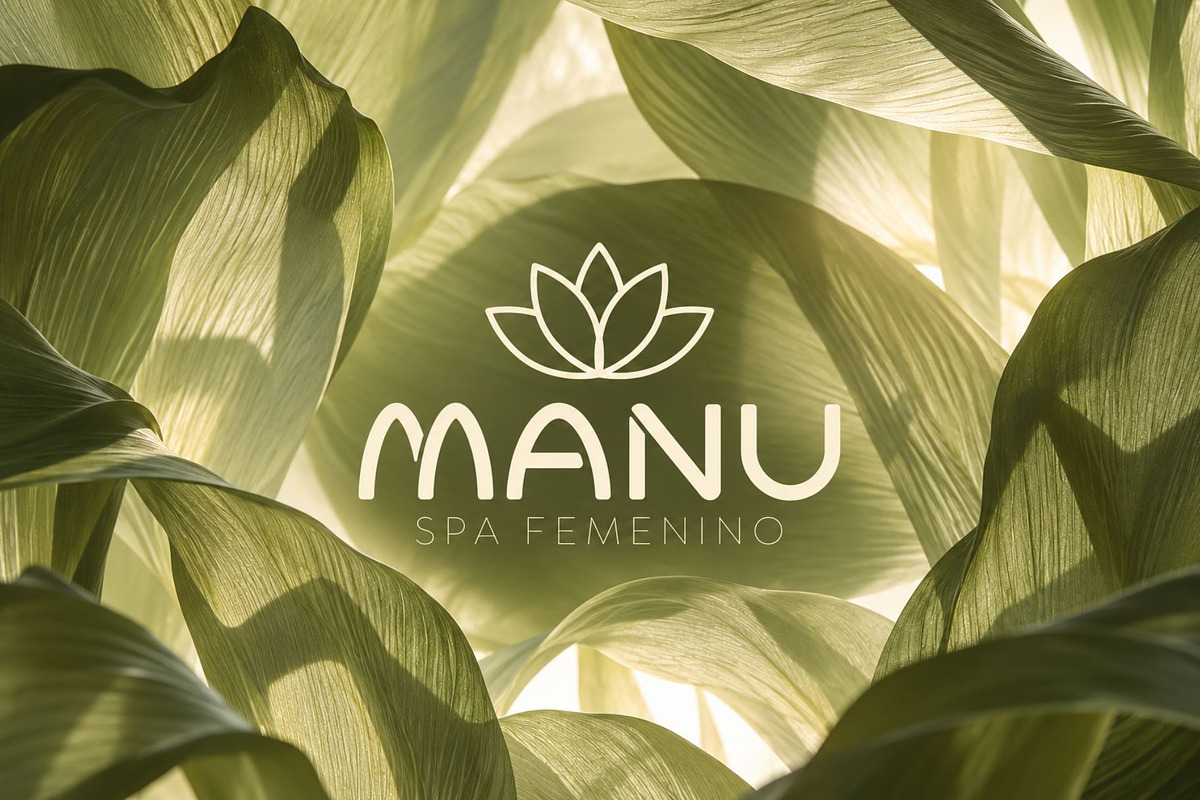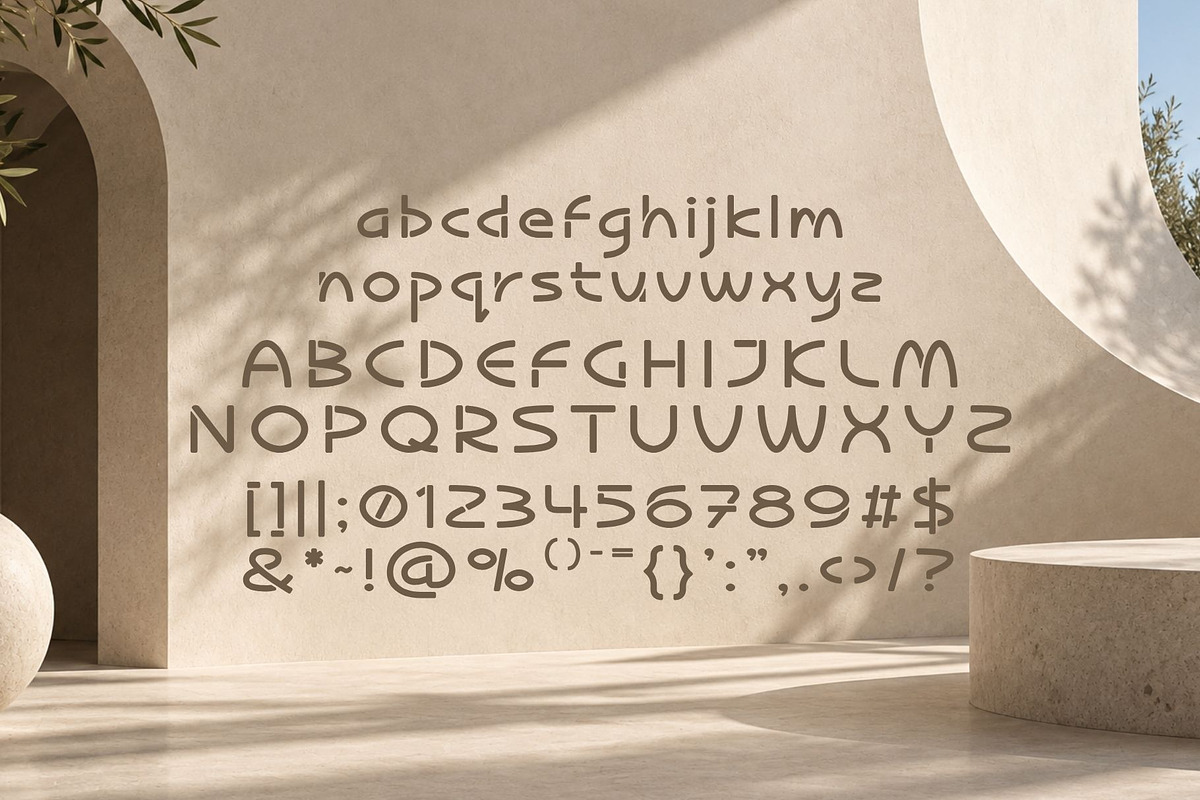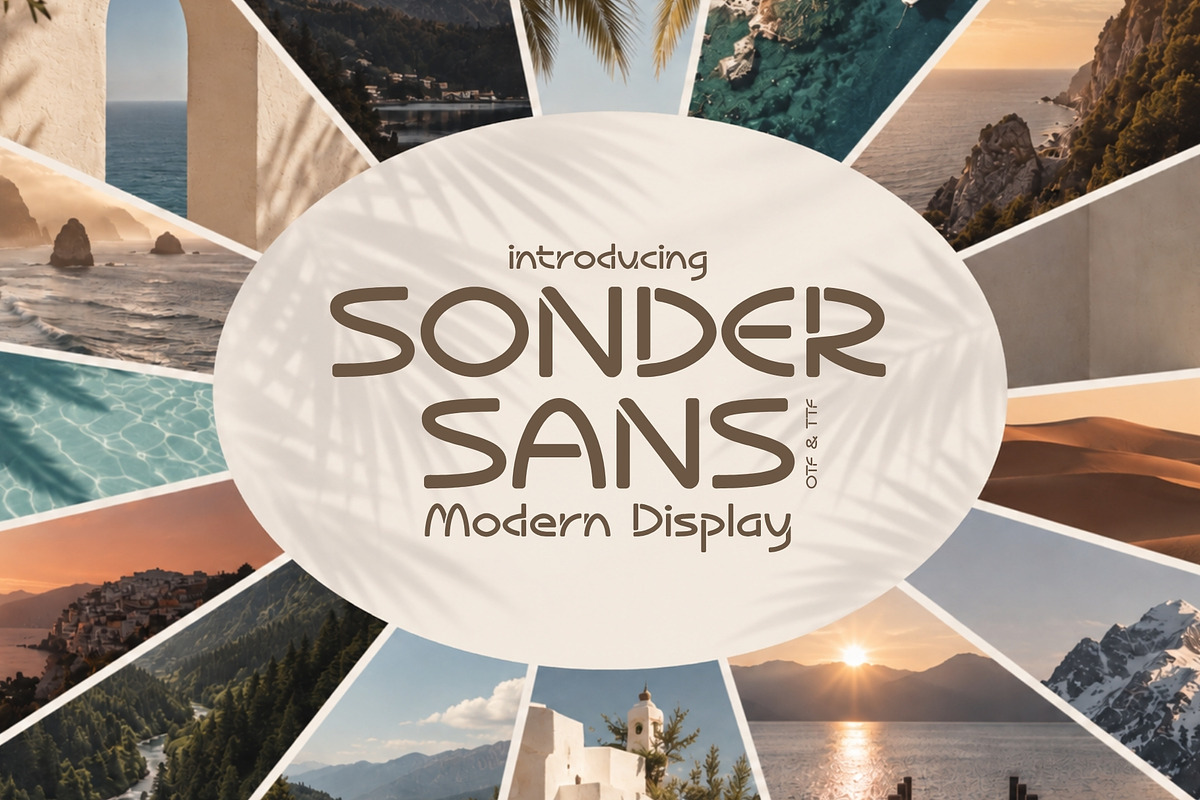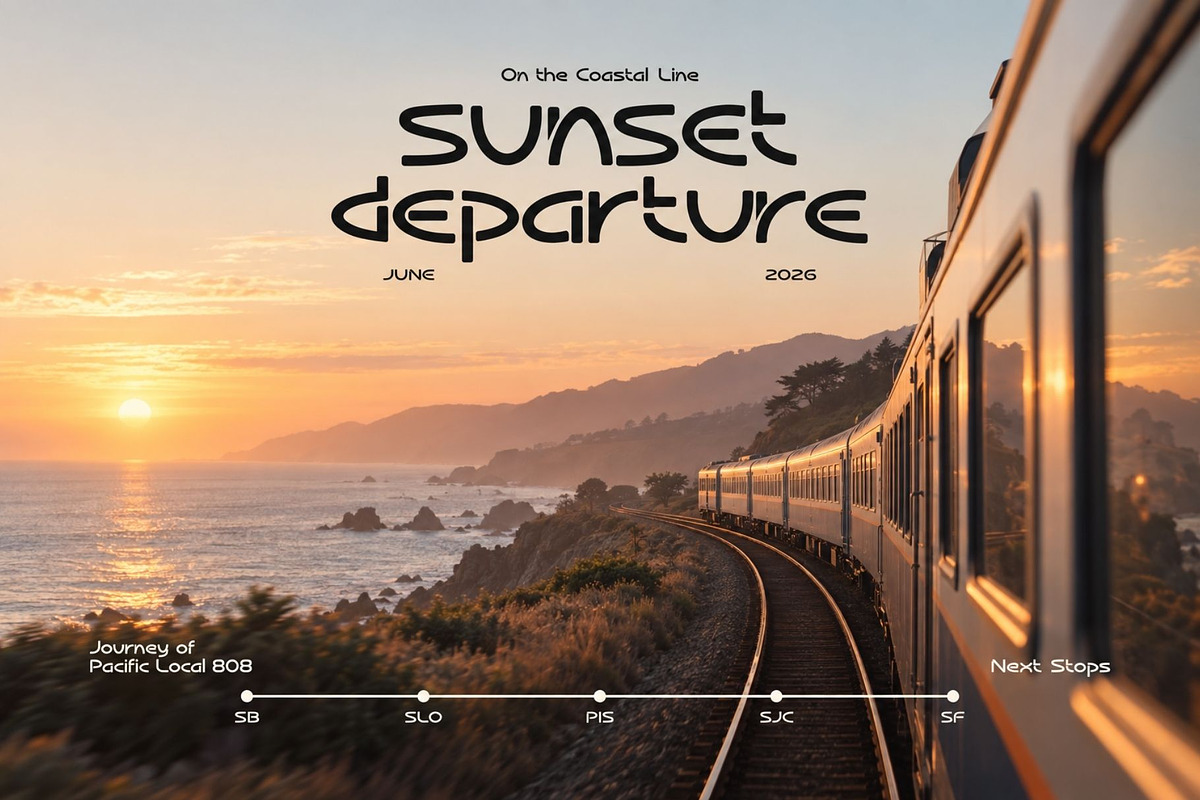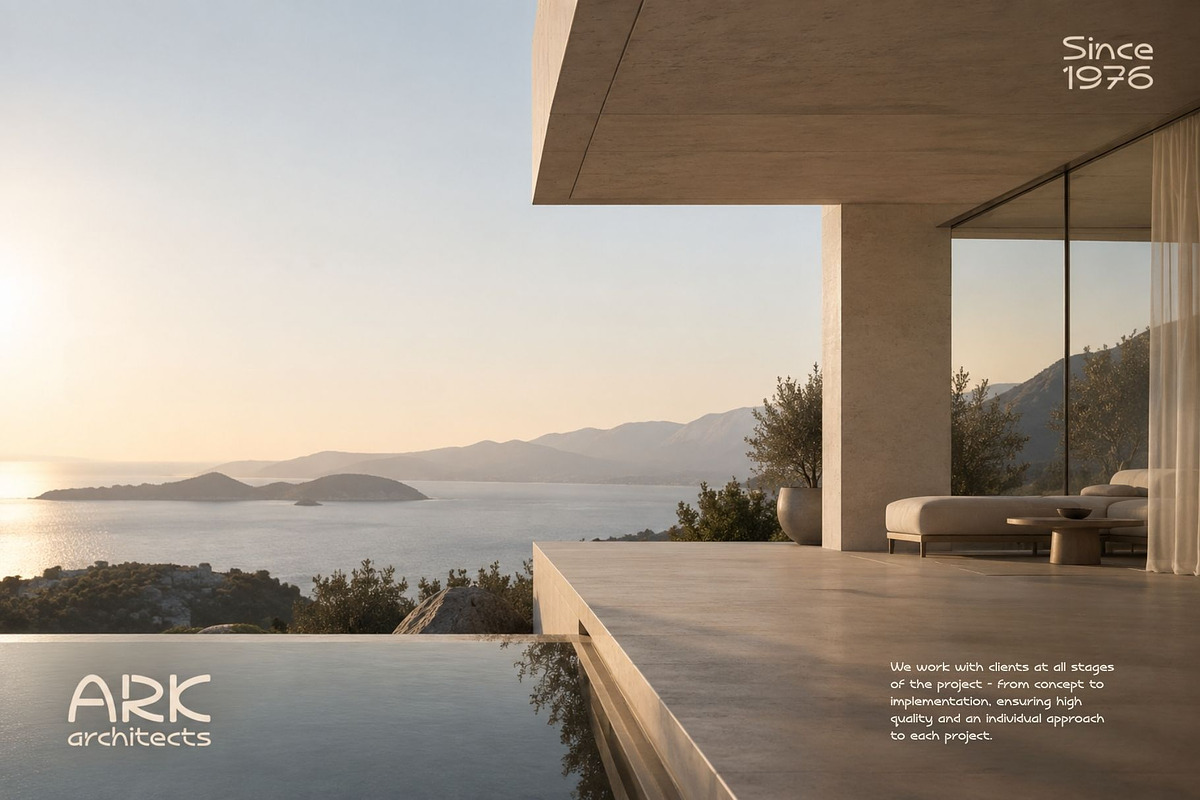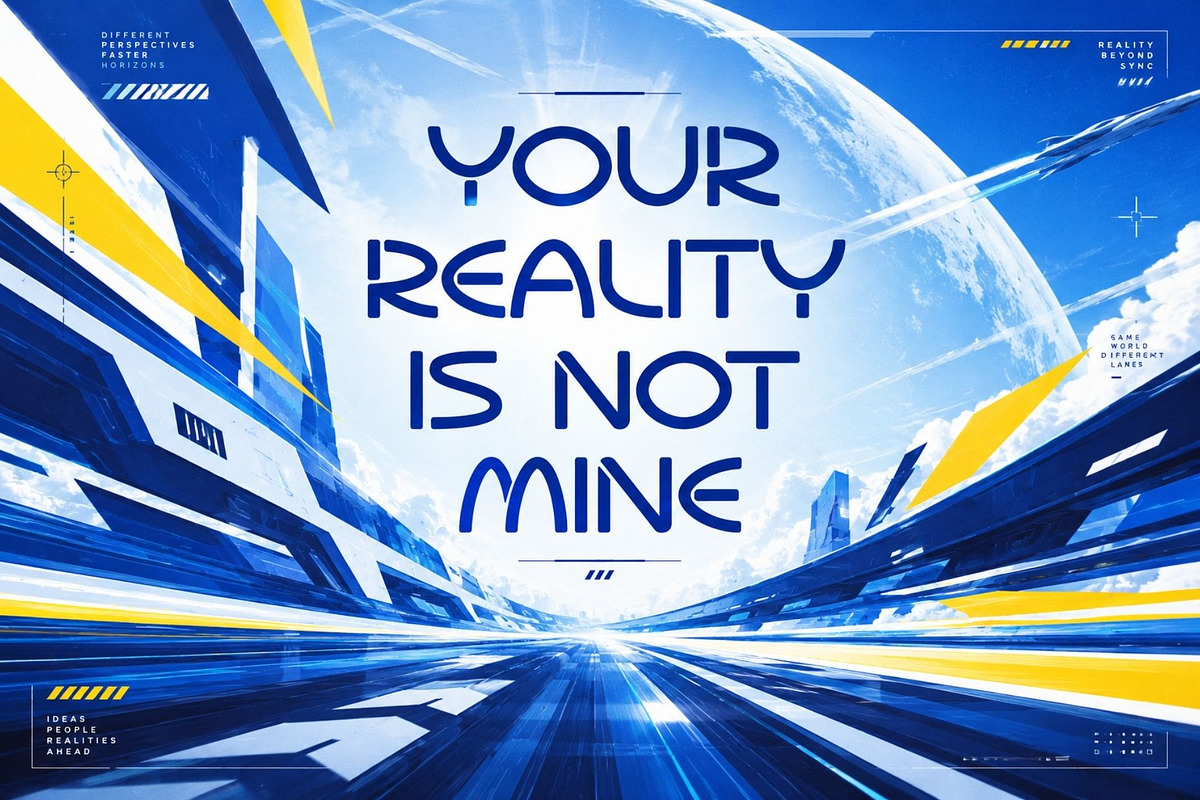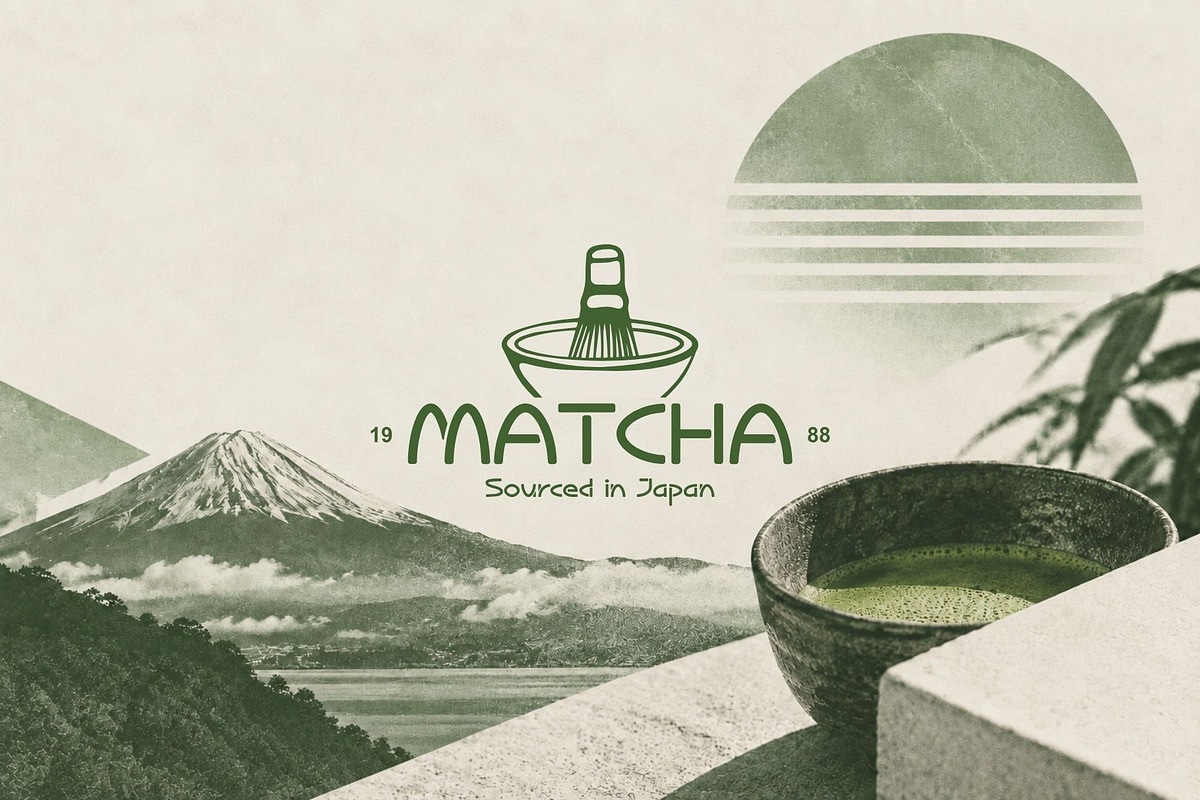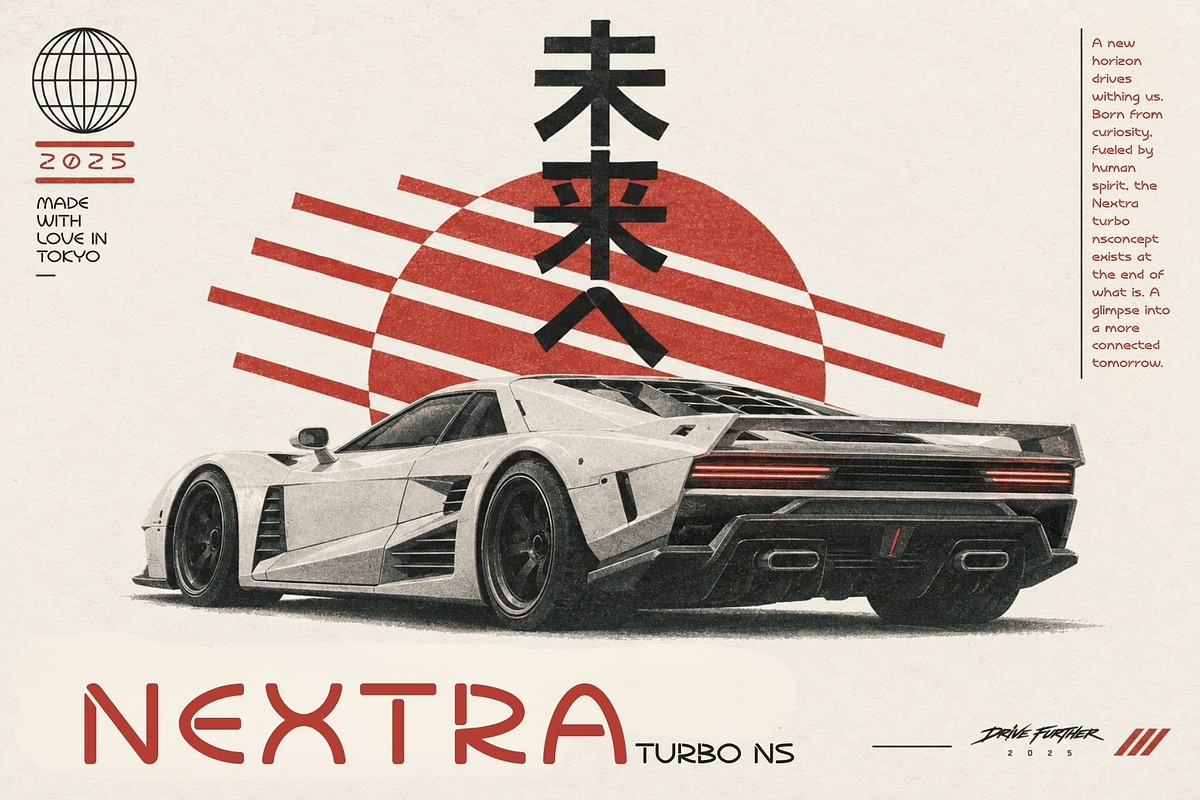
Sonder Sans - Geometric Display
Meet Sonder Sans, a modern geometric display typeface with a bold retro-futurist personality. Built from wide proportions, smooth monoline strokes, rounded terminals, and carefully engineered cut details, Sonder Sans creates a distinctive silhouette that feels clean, contemporary, and instantly recognizable.
Its visual language draws from 1970s space-age typography, Y2K minimalism, modern architecture, and luxury editorial design. Rather than relying on traditional sans-serif construction, Sonder Sans uses open forms, interrupted strokes, circular geometry, and unconventional joins to create letters that feel designed with intention. Characters such as the S, D, E, R, A, and N showcase the typeface’s unique character especially well, giving words a sculptural and almost architectural quality.
The result is a display font that balances nostalgia with sophistication. It can feel futuristic and technical in one setting, then elegant and editorial in another. Its wide rhythm makes headlines feel confident and premium, while the soft curves and rounded details keep the overall appearance approachable rather than harsh.
Sonder Sans is an excellent choice for fashion labels, architecture studios, luxury travel brands, resorts, technology companies, automotive projects, album artwork, packaging, posters, editorial layouts, product launches, creative agencies, and modern lifestyle branding. It is especially effective when used large, where its distinctive geometry and unusual letter construction can become the visual identity of the entire design.
Whether you're building a sleek brand system, creating a cinematic title, designing a resort campaign, or producing a futuristic product launch, Sonder Sans gives your work a refined space-age edge with a premium modern finish.